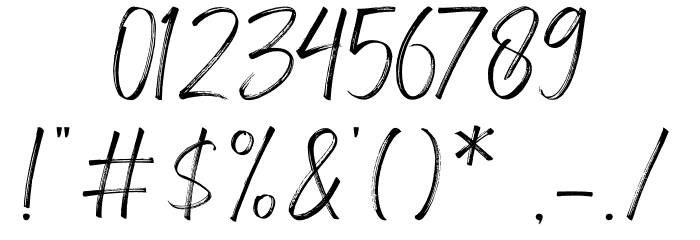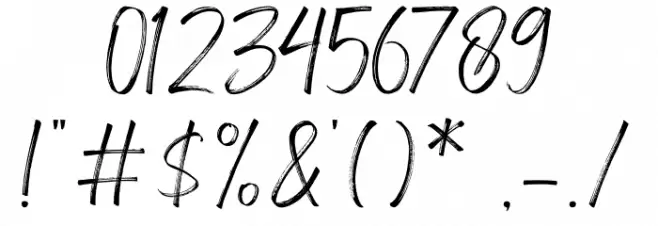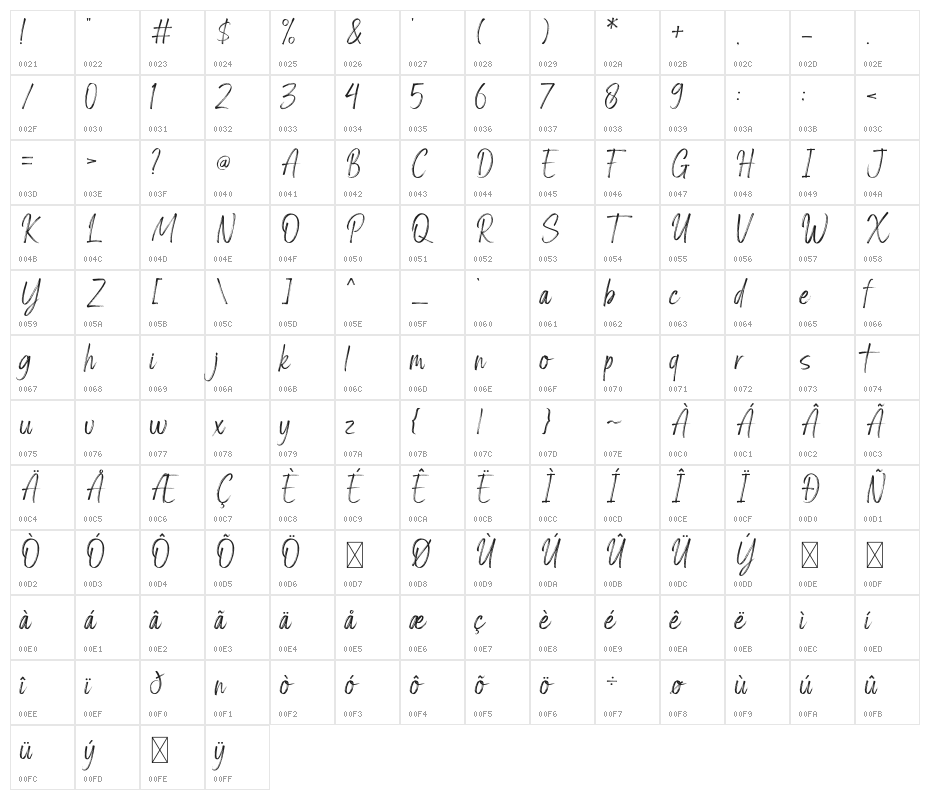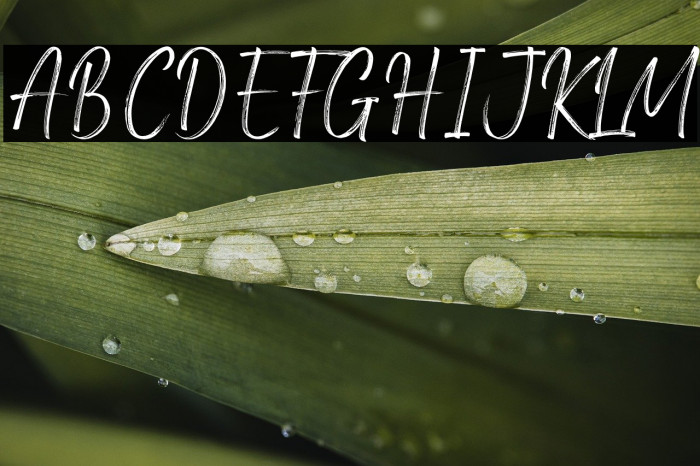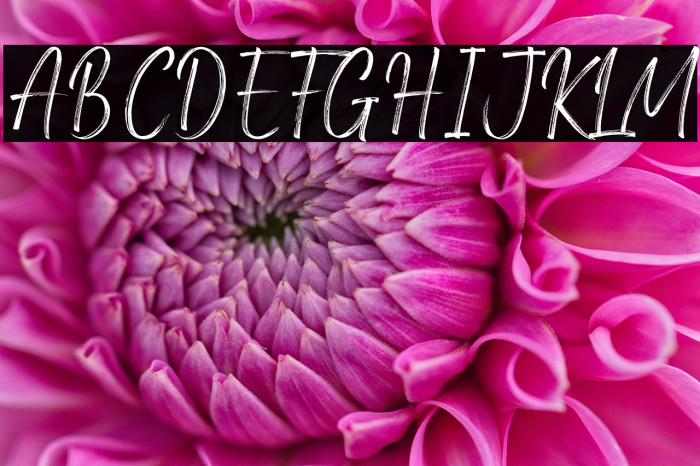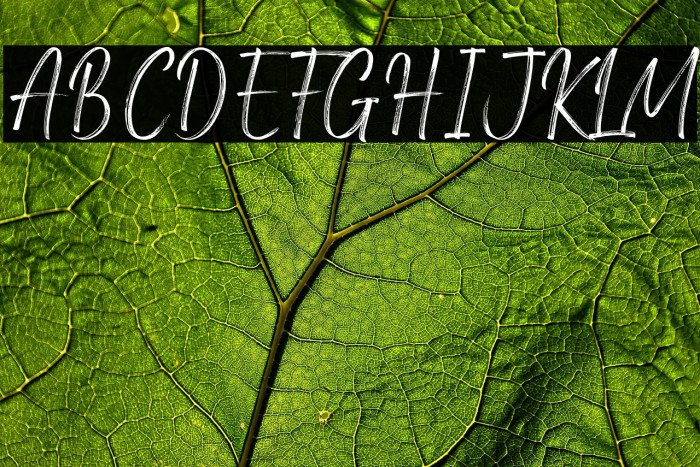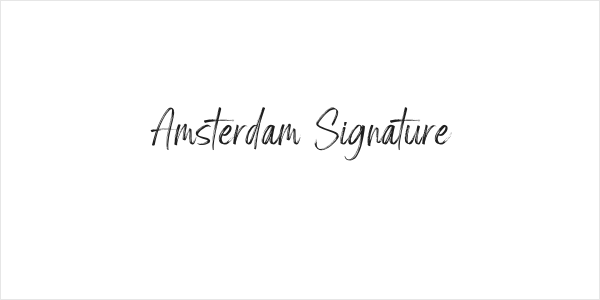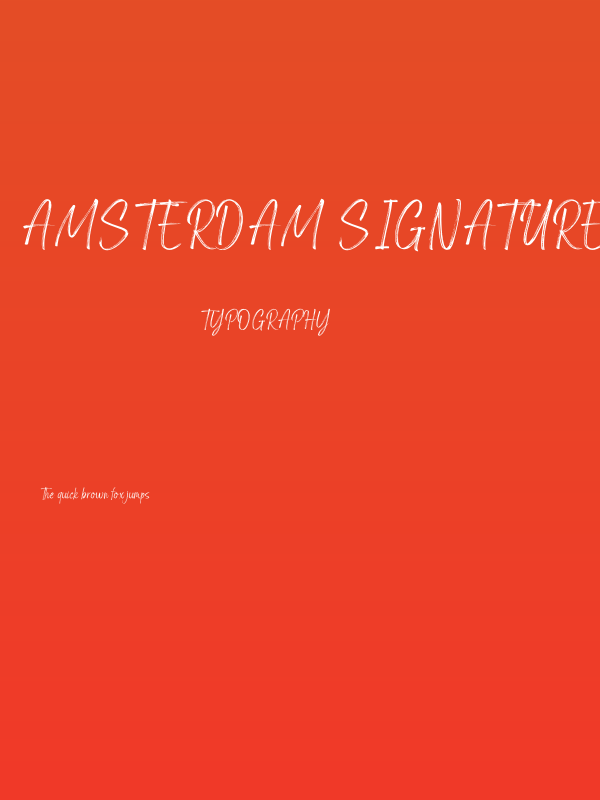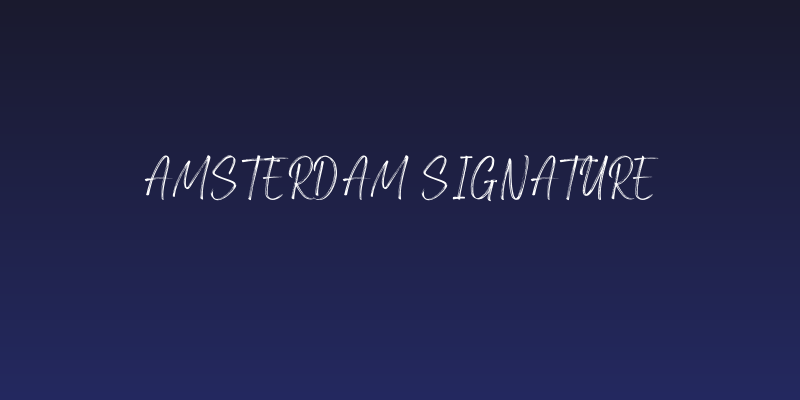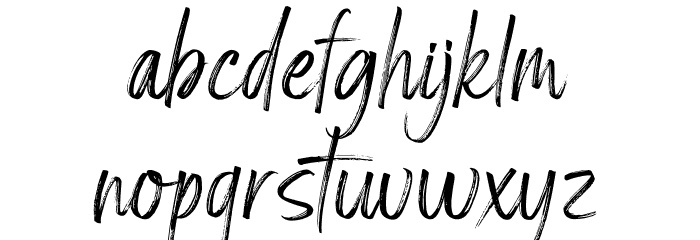
Amsterdam Signature Font
Amsterdam Signature Description
This font exudes a modern and elegant handwritten style, characterized by its fluid and cursive strokes. The letters are connected in a natural flow, reminiscent of a personal signature, which adds a touch of sophistication and personality. The uppercase letters maintain a consistent height, while the lowercase letters vary slightly, enhancing the organic feel. The numerals and special characters are crafted with the same attention to detail, ensuring a cohesive look across all elements. The overall appearance is both stylish and approachable, making it suitable for a variety of design projects.